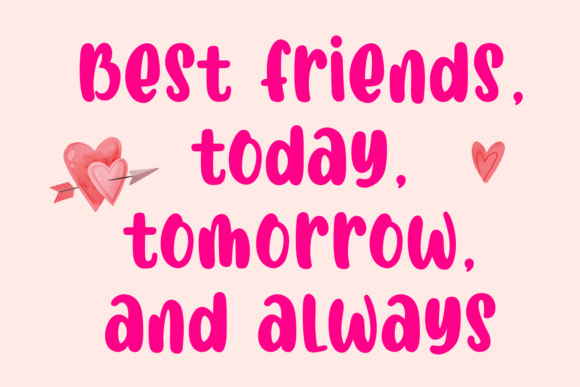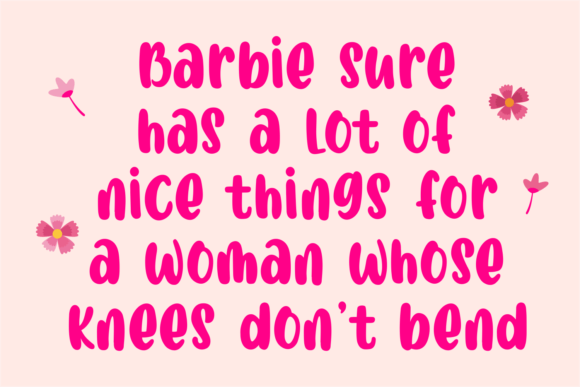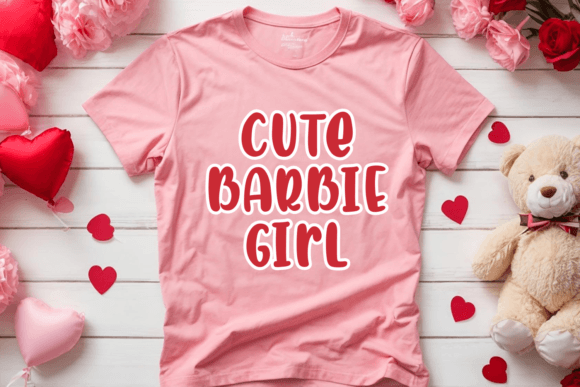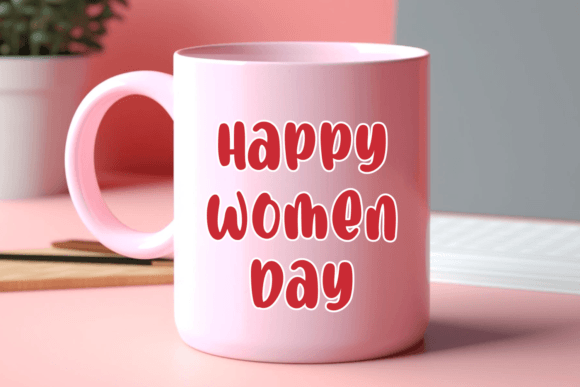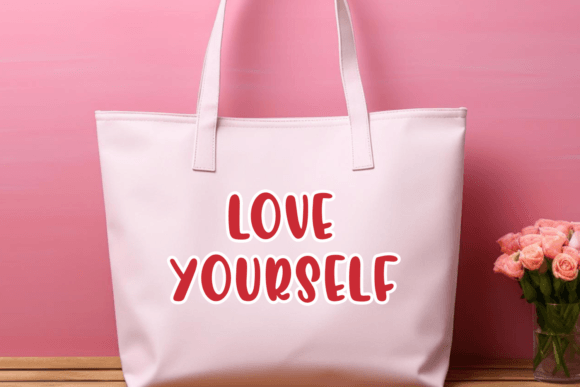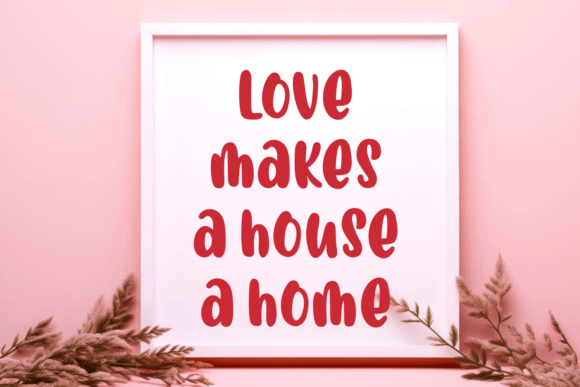
Introducing Cute Barbie: The Ultimate Display Font for Charming Designs
Are you tired of using the same old fonts for your designs? Do you want to add a touch of sweetness and elegance to your projects? Look no further than Cute Barbie, the newest and most adorable display font on the block! Infused with charming aesthetics, this font is perfect for themes revolving around love, Valentine’s Day, Mother’s Day, crafting, greeting cards, decorations, craft lettering, embroidery, and more.
The Perfect Blend of Playfulness and Elegance
Cute Barbie font is designed to exude warmth and affection, making it the ideal choice for designers and crafters who want to create charming and delightful designs. With its playful curves and delightful strokes, this font adds a touch of sweetness to any project, evoking feelings of tenderness and joy. Whether you’re crafting heartfelt messages, designing charming decorations, or embroidering lovely motifs, Cute Barbie font is your ultimate companion.
The versatility of Cute Barbie font is one of its most appealing features. This enchanting typeface can be used for a wide range of design projects, including:
- Valentine’s Day and Mother’s Day cards and decorations
- Crafting and DIY projects, such as scrapbooking and paper crafting
- Greeting cards and invitations for special occasions
- Embroidery and cross-stitch patterns
- Decorations and signs for weddings and baby showers
Why Choose Cute Barbie Font?
So, what sets Cute Barbie font apart from other display fonts on the market? Here are just a few reasons why designers and crafters are falling in love with this charming typeface:
- Unique and eye-catching design: Cute Barbie font features a one-of-a-kind design that is sure to grab attention and make your designs stand out.
- Emotional connection: This font is designed to evoke feelings of warmth, love, and tenderness, making it perfect for projects that require a personal touch.
- High-quality design: This font is designed to produce high-quality text and graphics, even at small sizes.
In conclusion, Cute Barbie font is the perfect choice for designers and crafters who want to add a touch of sweetness and elegance to their designs. With its playful curves and delightful strokes, this font is sure to evoke feelings of tenderness and joy. Whether you’re crafting heartfelt messages, designing charming decorations, or embroidering lovely motifs, Cute Barbie font is your ultimate companion. So why wait? Get your hands on Cute Barbie font today and let your creations shine with love and affection!